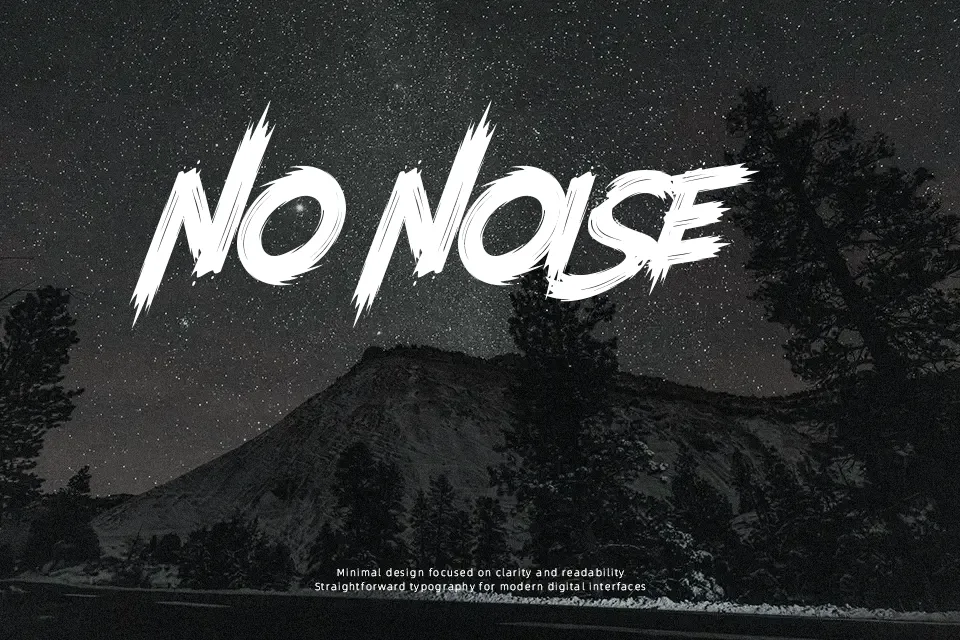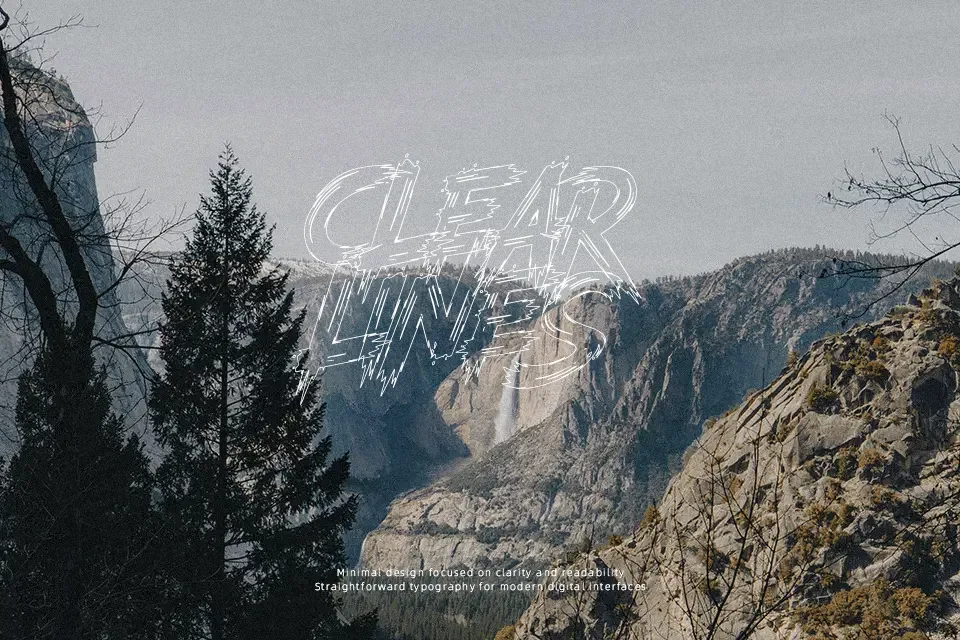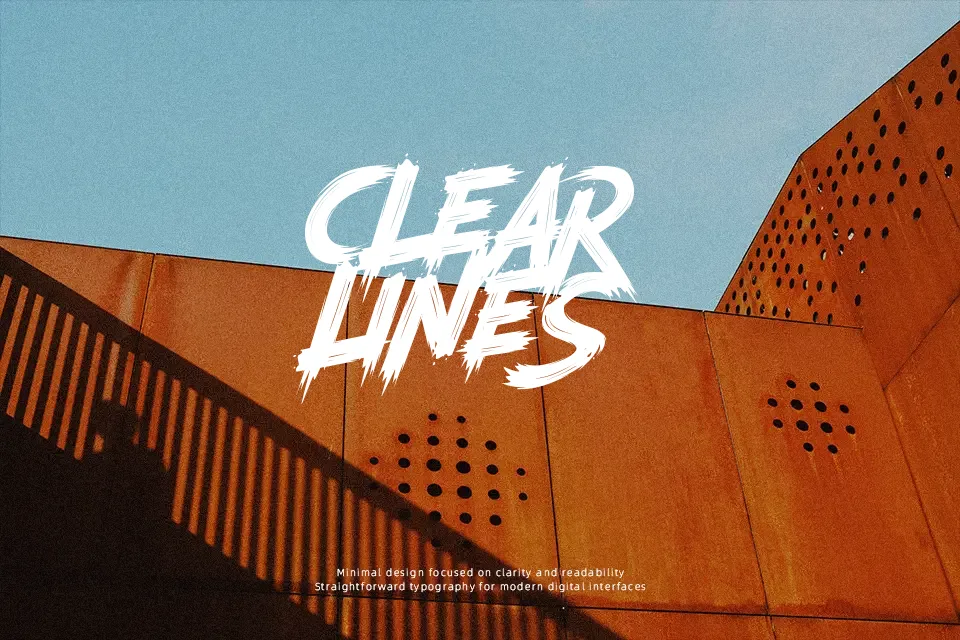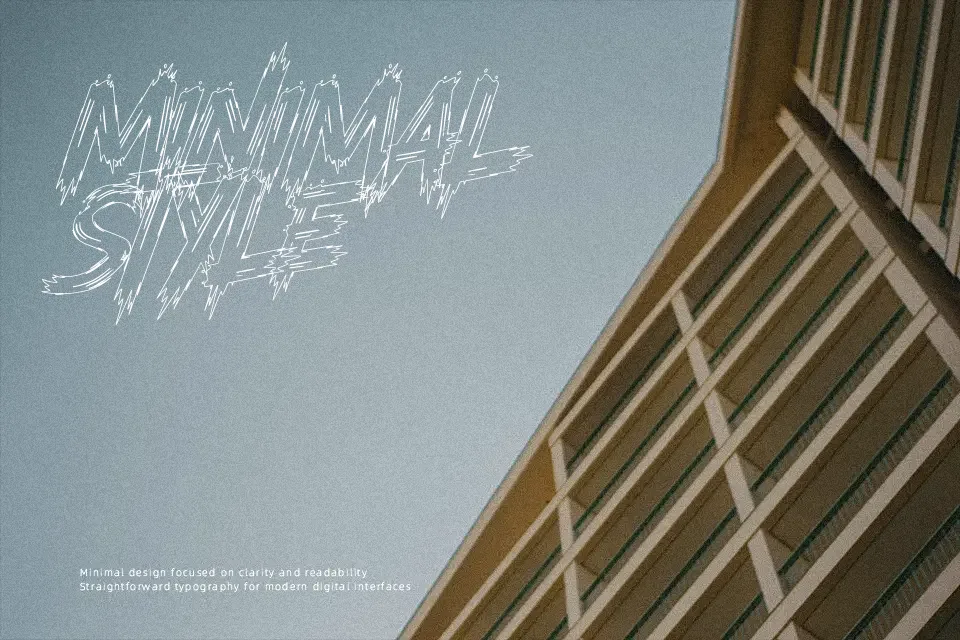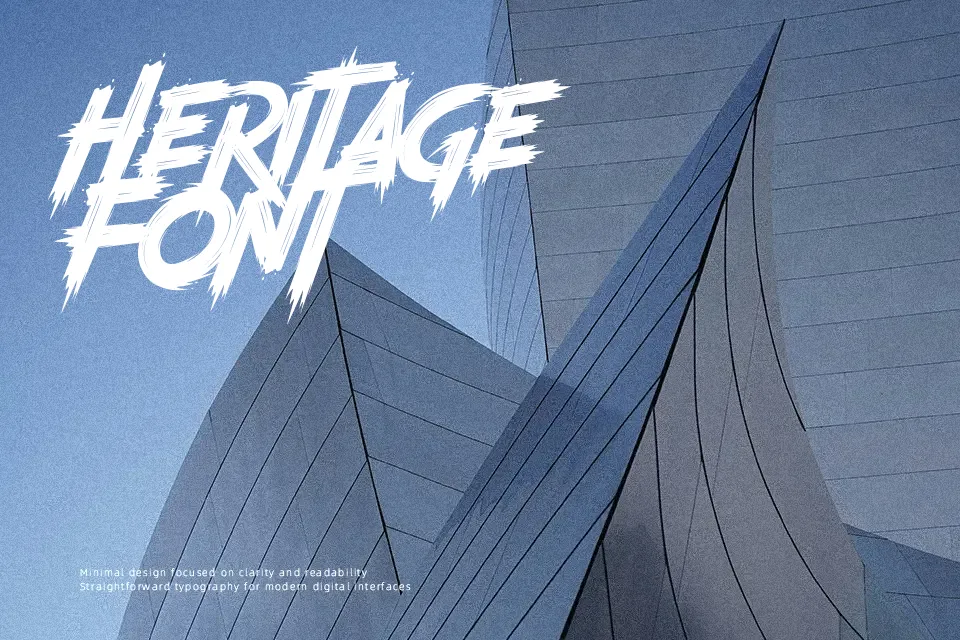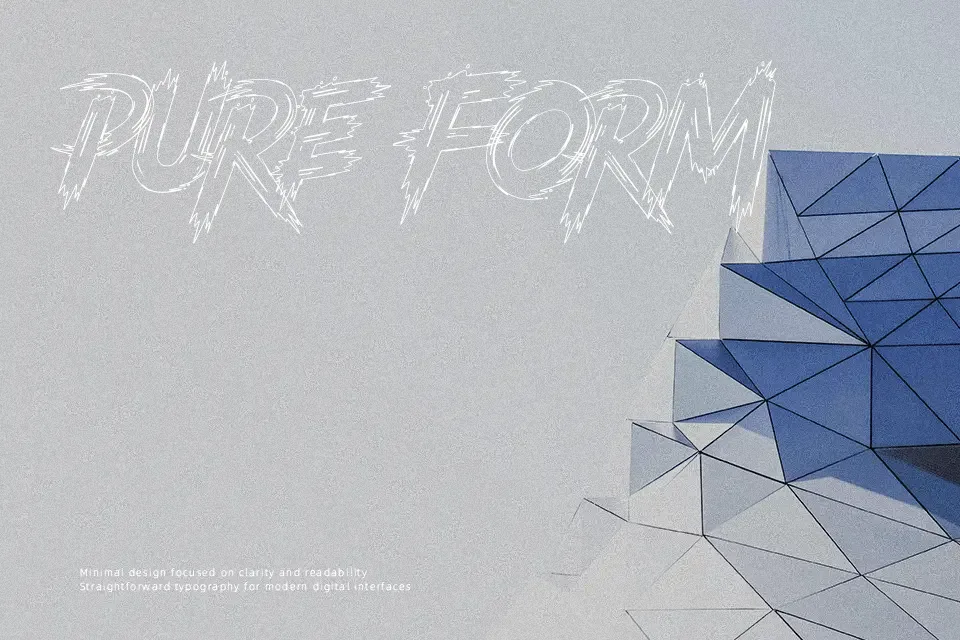
Trenches Font
Trenches Font showcases an intense visual structure characterized by raw, hand-painted stroke weights and coarse outer contours. Dense character spacing pairs with compact vertical proportions, creating an imposing rhythm that maximizes visual weight across large headlines. The letterforms remain legible when set as brief display titles on apparel, comic covers, or event banners. However, the aggressive texturing and thick forms severely impede readability in extended body paragraphs or small user interfaces. The deliberate heaviness gives the typeface remarkable punch in standalone focal points, though close tracking requires careful breathing room when arranging crowded multi-line typographic compositions.
Best For: comic book covers, horror movie posters, streetwear apparel graphics, halloween promotional flyers
Not Ideal For: extended editorial body text, corporate annual reports, mobile application ui labels, dense technical manuals
Perfect for film, halloween, and headline, with a bold and brush style.